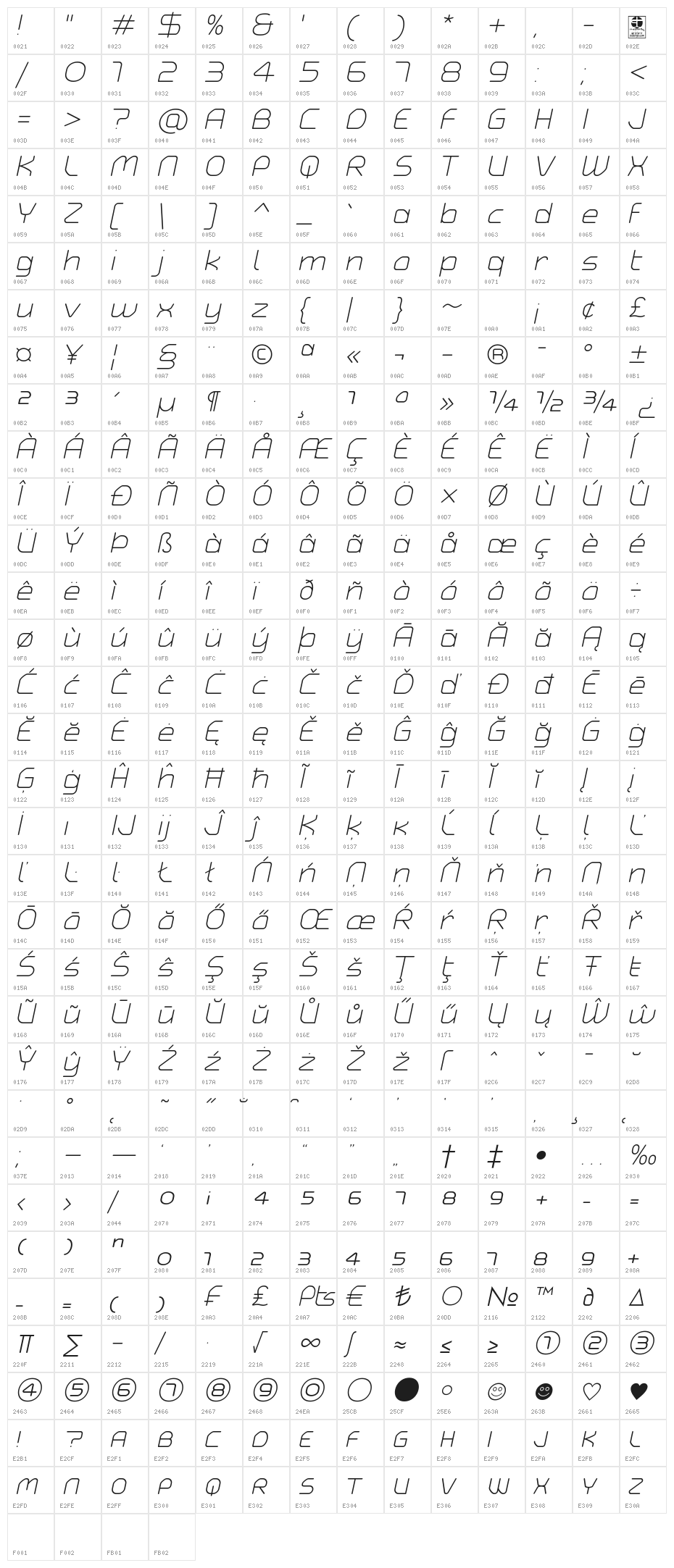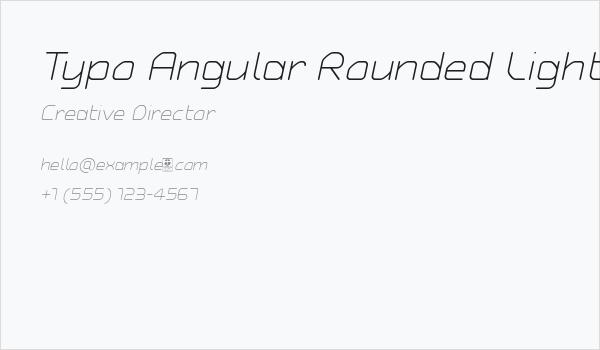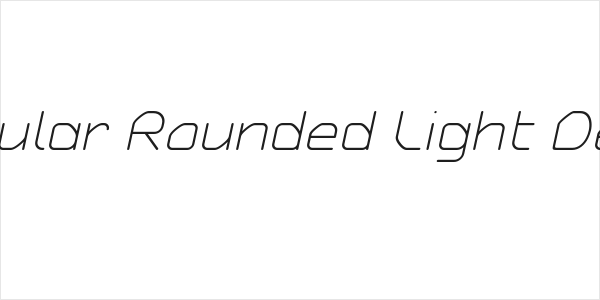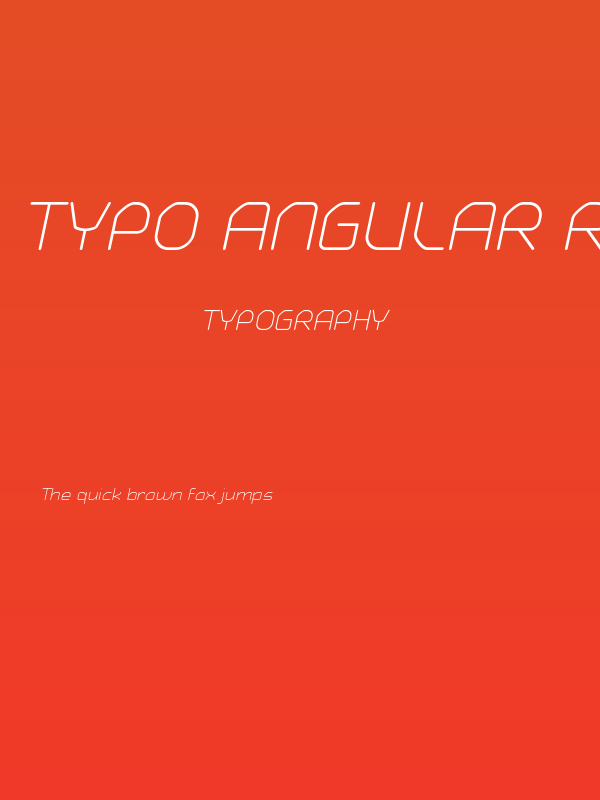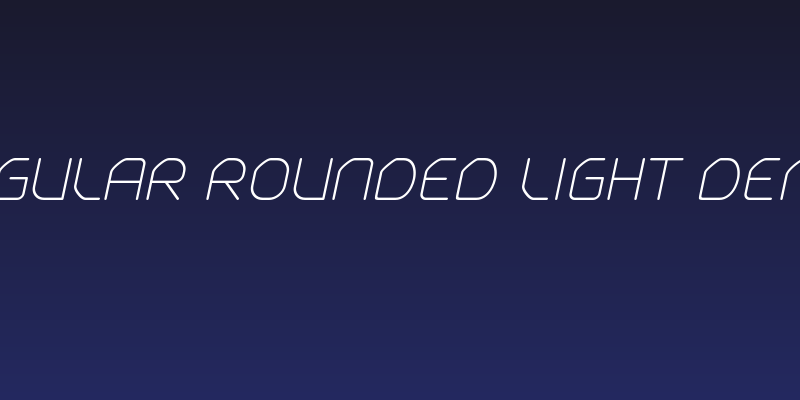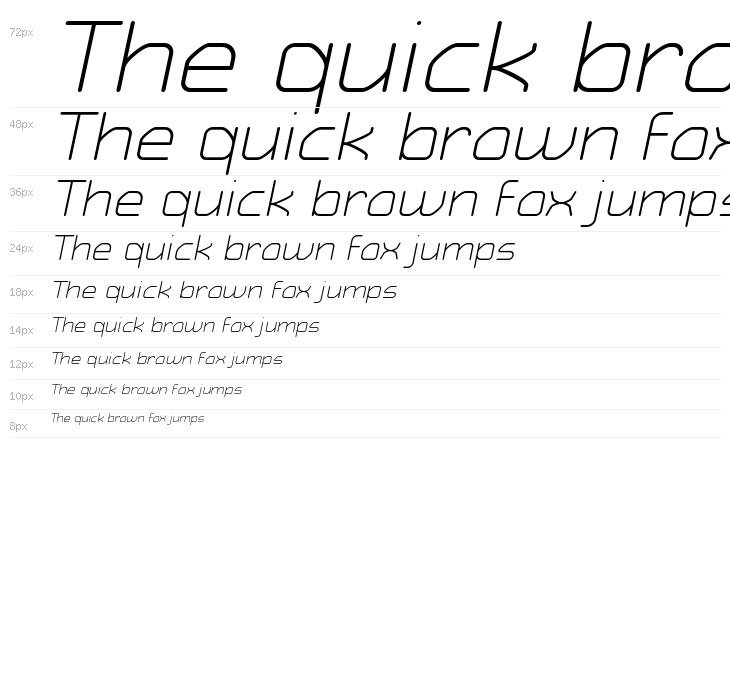
Typo Angular Rounded Light Demo Italic Font
Typo Angular Rounded Light Demo Italic Description
This font features a modern, angular design with rounded edges, creating a unique blend of sharpness and softness. The light weight of the strokes gives it an airy and open feel, while the italic slant adds a sense of motion and elegance. The characters are evenly spaced, contributing to a clean and organized appearance. Its geometric structure is consistent across uppercase, lowercase, numbers, and special characters, making it versatile for various design needs. The font's minimalist style is both contemporary and approachable, suitable for projects that require a fresh and innovative look.
| Use Case | Headlines, Logos, Tech Branding |
| Proposed Projects | Ideal for tech branding, modern UI design, innovative product packaging, and contemporary advertising. |